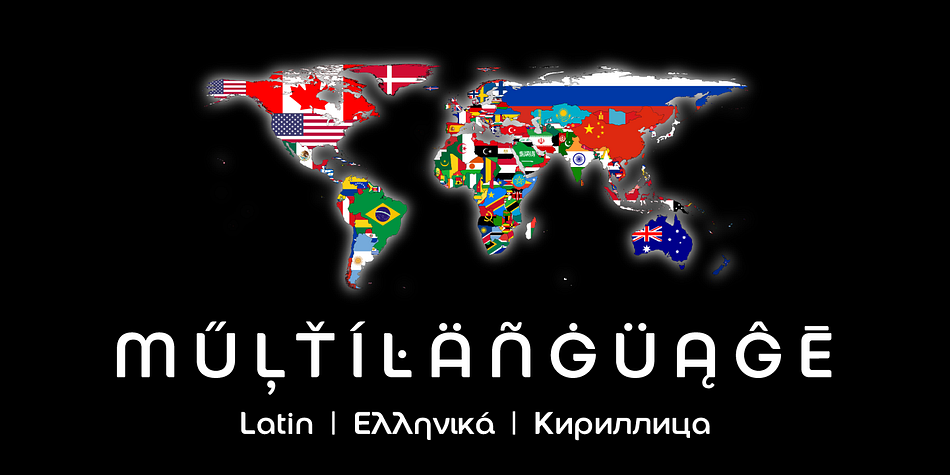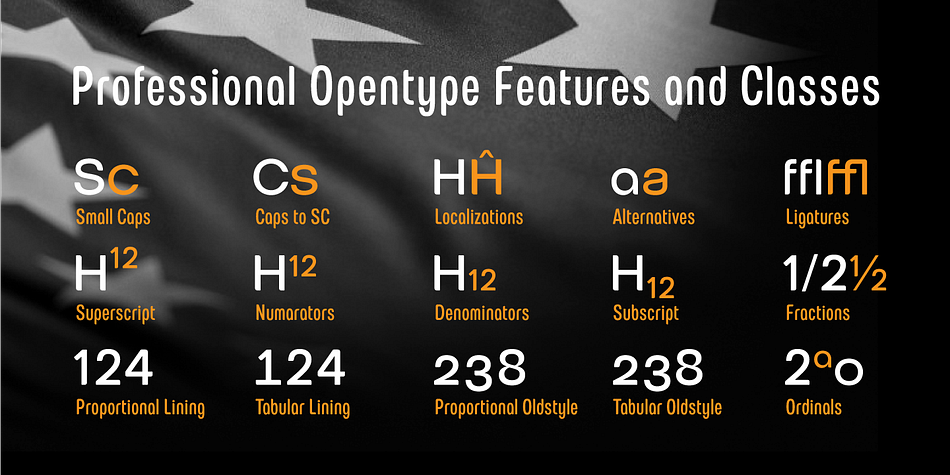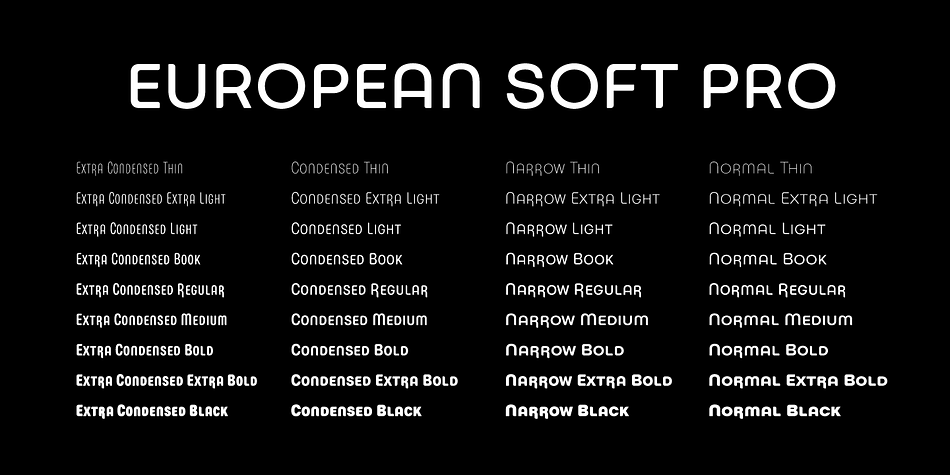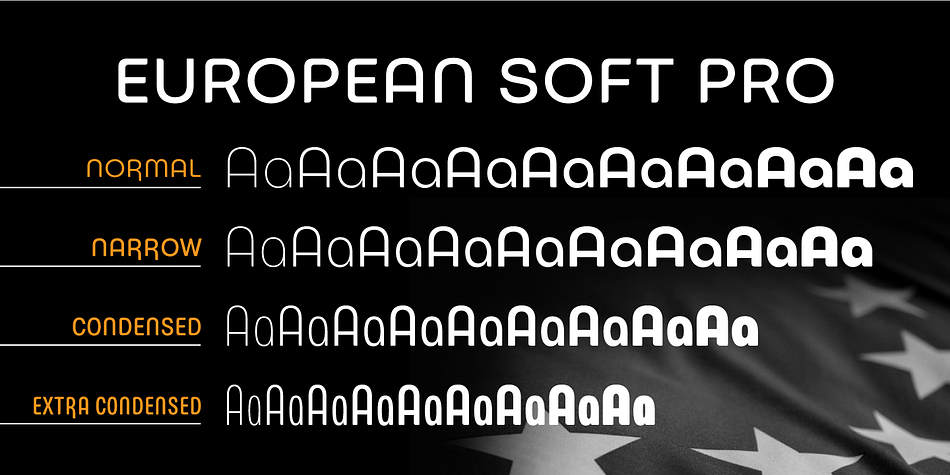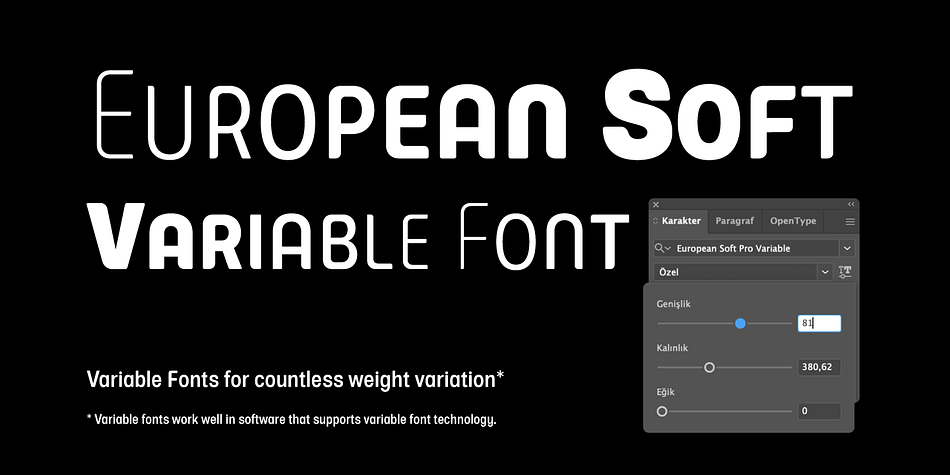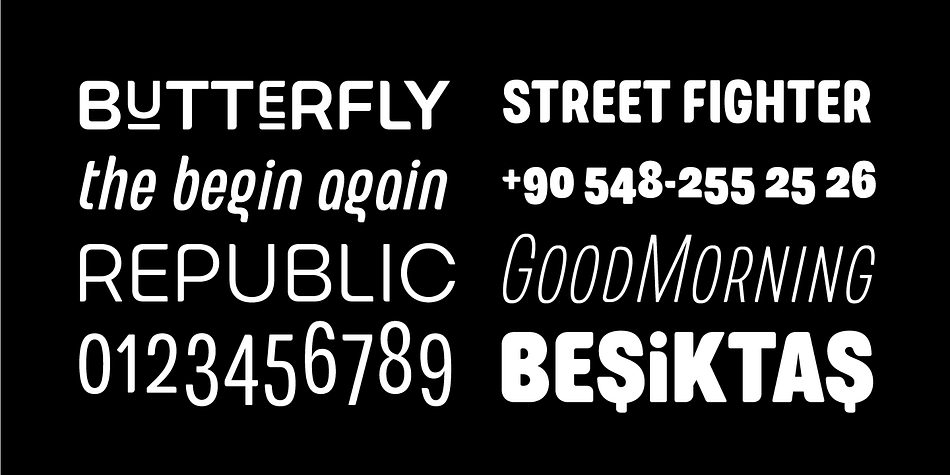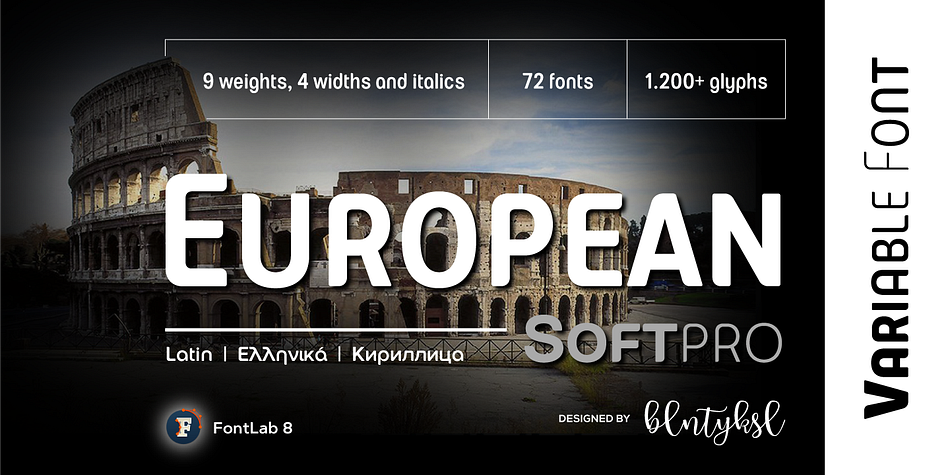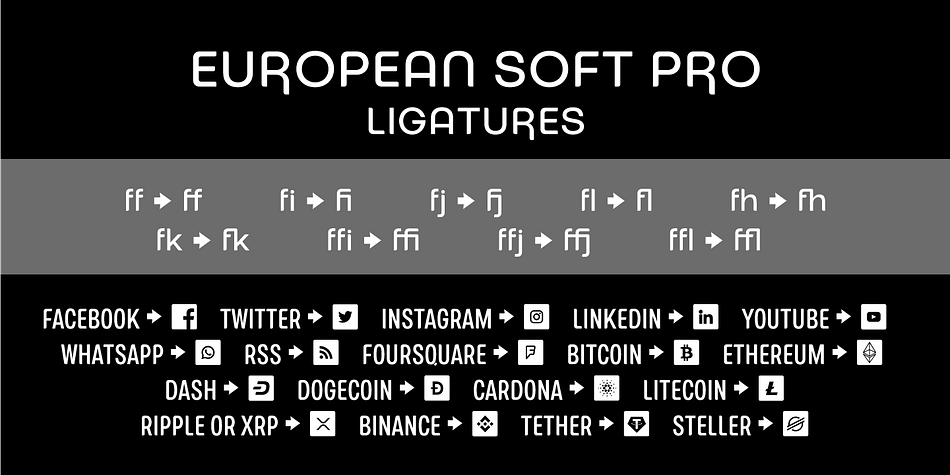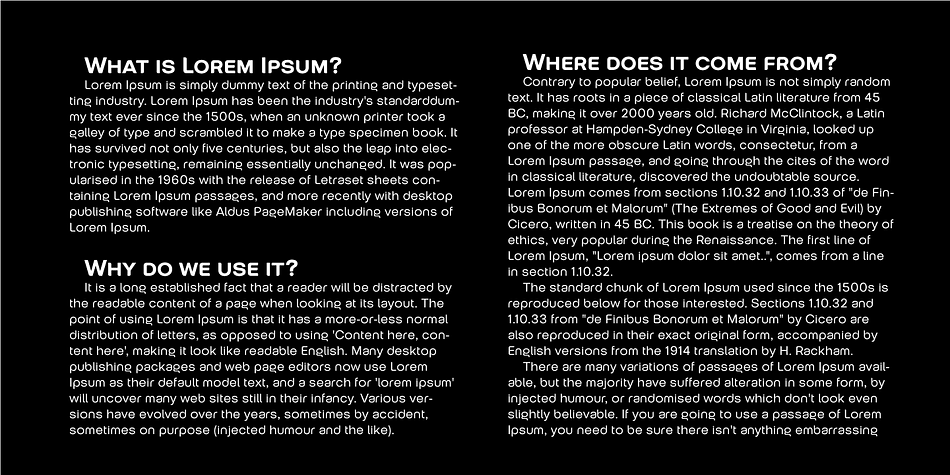
Designed by Bülent Yüksel, European Soft Pro Variable is a sans serif font family published by Bülent Yüksel.
EUROPEAN SOFT PRO VARIABLE
What makes “European Soft Pro Variable” elegant, friendly and contemporary is its very rounded curves with very open terminals.
“European Soft Pro Variable” has been designed with a higher “x-height” than other fonts in its class to make tiny readability more obvious in any use situation. It will be ideal for use in small sizes such as business cards or mobile applications.
This typeface is also equipped with powerful OpenType features to satisfy the most demanding professionals. It has solid features like case sensitivity, small, true capitals, full ligatures, tabular figures for tables, old style figures to elegantly insert numbers into your sentences and more alternative characters to give personality to your projects.
The extended, “European Soft Pro Variable” supports around 85 languages in the Latin, Cyrillic and Greek scripts, and its non-Latin components were developed with native consultants. With over 1200+ glyphs per style, “European Soft Pro” cares about localised letterforms and has the OpenType features to match.
FEATURE SUMMARY:
- 9 weights: Thin, ExtraLight, Light, Book, Regular, Medium, Bold, ExtraBold, and Black.
- 4 widths: Normal, Narrow, Condensed, and Extra Condensed.
- Matching italics (12º) for all weights and widths .
- Matching small caps for all weights and widths.
- Lining and old style figures (proportional and tabular).
- Alternate characters (A, G, M, N, R, U, a, g, l, m, n, u, y).
- Unlimited fractions.
- Automatic ordinals (1st, 2nd, 3rd, etc.).
- 24 Dingbats + 19 Social Media and Block Chain icons.
- Extended language support: Most Latin-based scripts (including Vietnamese), Cyrillic, and Greek.
- Extended currency support.